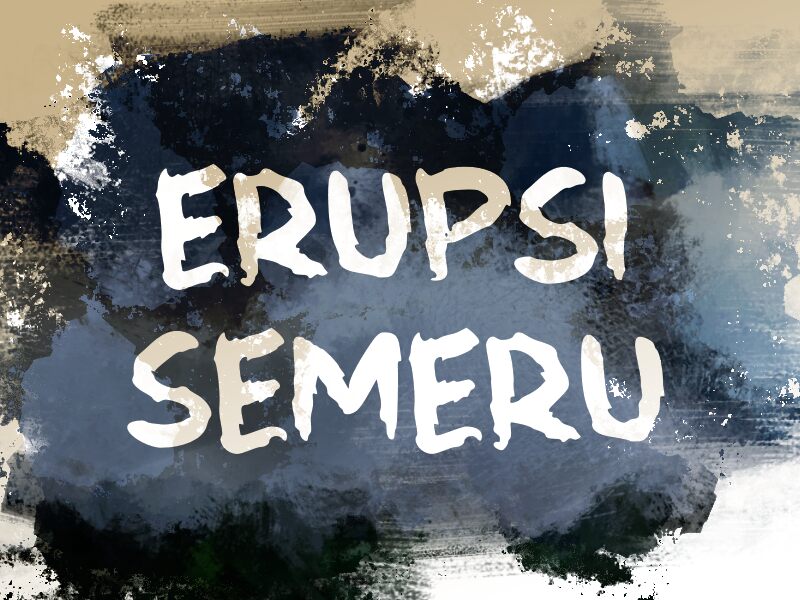
Erupsi Semeru
Erupsi Semeru, a captivating brush font by wep, merges bold strokes with a semi-expanded width to evoke a sense of artistic energy and dynamism. With its fluid curves and expressive lines, this font effortlessly breathes life into various creative projects. Perfect for eye-catching logos, striking headlines, or edgy poster designs, Erupsi Semeru adds an authentic handcrafted touch to your branding. Whether you aim for an urban street vibe or an adventurous outdoor feel, this versatile typeface invites you to unleash your imagination and create stunning visuals that stand out from the crowd.